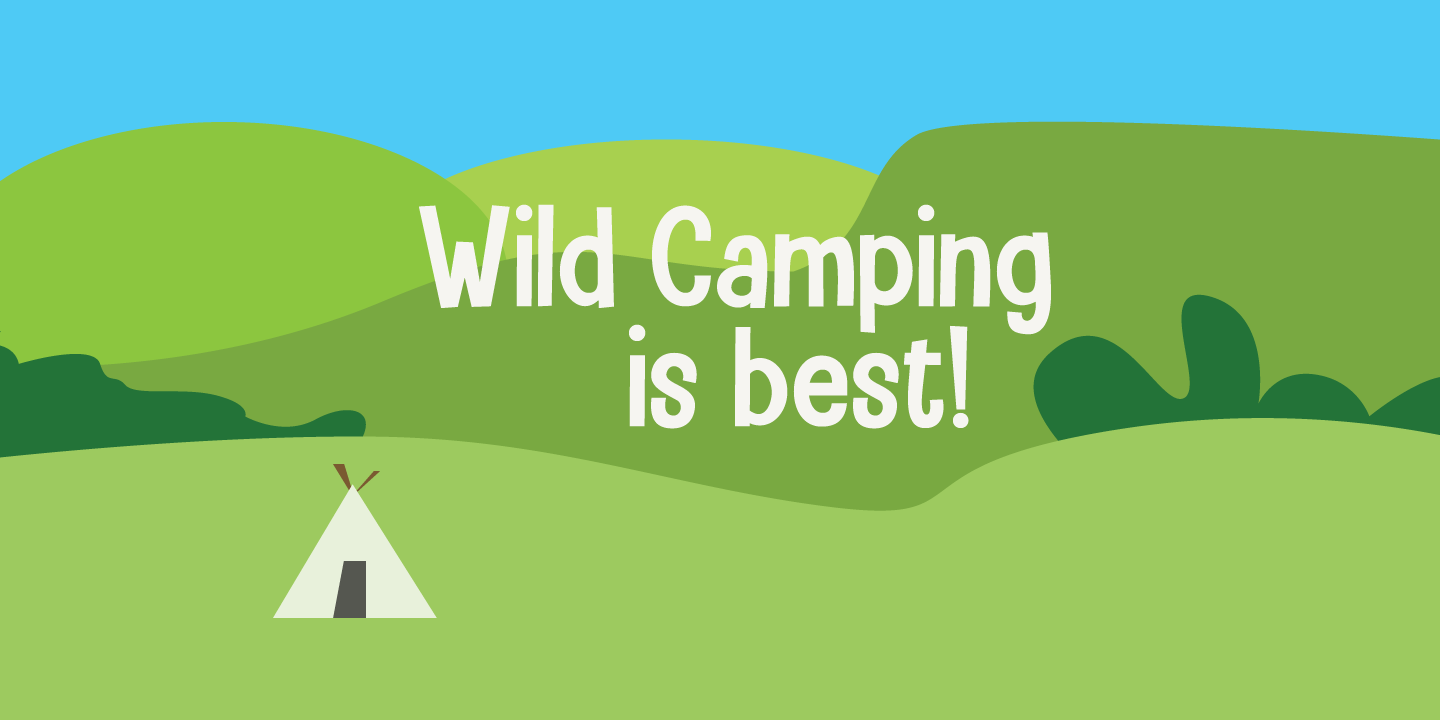
Camping Holiday Font is perfect for outdoor adventure brands, camping equipment packaging, nature tourism websites, national park signage, hiking trail maps, outdoor gear catalogs, summer camp logos, RV rental companies, wilderness retreat branding, and adventure travel promotions.
Camping Holiday Font is exciting because it combines playful hand-lettered charm with outdoor adventure spirit, featuring relaxed letterforms that evoke campfire stories and wilderness exploration, making it ideal for brands that want to communicate fun, freedom, and the joy of outdoor experiences.
The Camping Holiday Font family includes regular and bold weights with decorative elements, nature-inspired ornaments, and casual alternates, providing designers with versatile options for creating authentic outdoor-themed typography that captures the adventurous spirit of camping culture.
When your project needs to inspire outdoor adventure and wanderlust, Camping Holiday Font Free Download delivers the perfect combination of playfulness and authenticity. This cheerful display typeface captures the essence of summer adventures and outdoor exploration, ensuring your designs resonate with nature lovers and adventure seekers. The friendly letterforms and casual styling make this font an excellent choice for brands targeting families, outdoor enthusiasts, and anyone seeking to escape into nature's embrace through compelling visual storytelling and approachable design communication.